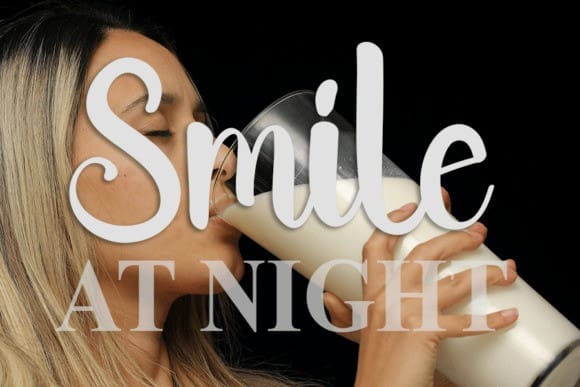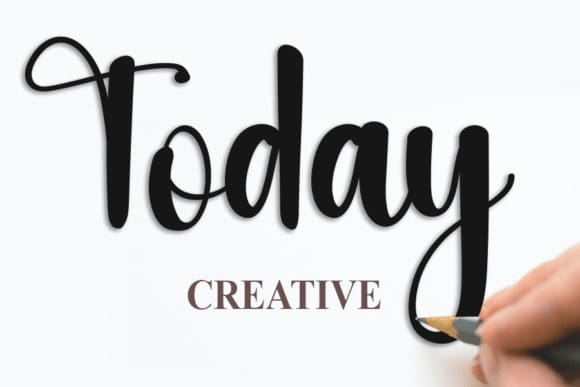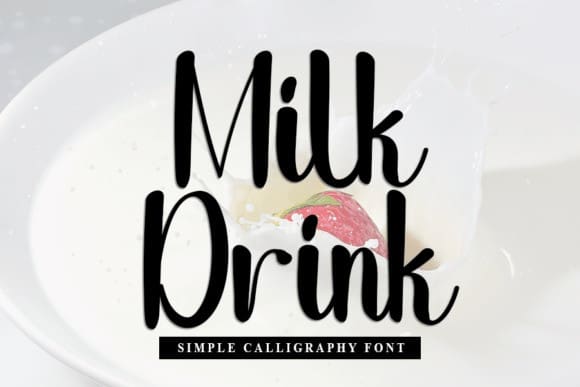
Milk Drink Typeface
Milk Drink Typeface is a beautiful and refined handwritten font. Classy and modern, it is perfect for logos, branding, invitations, stationery, wedding designs, social media posts, and much more!